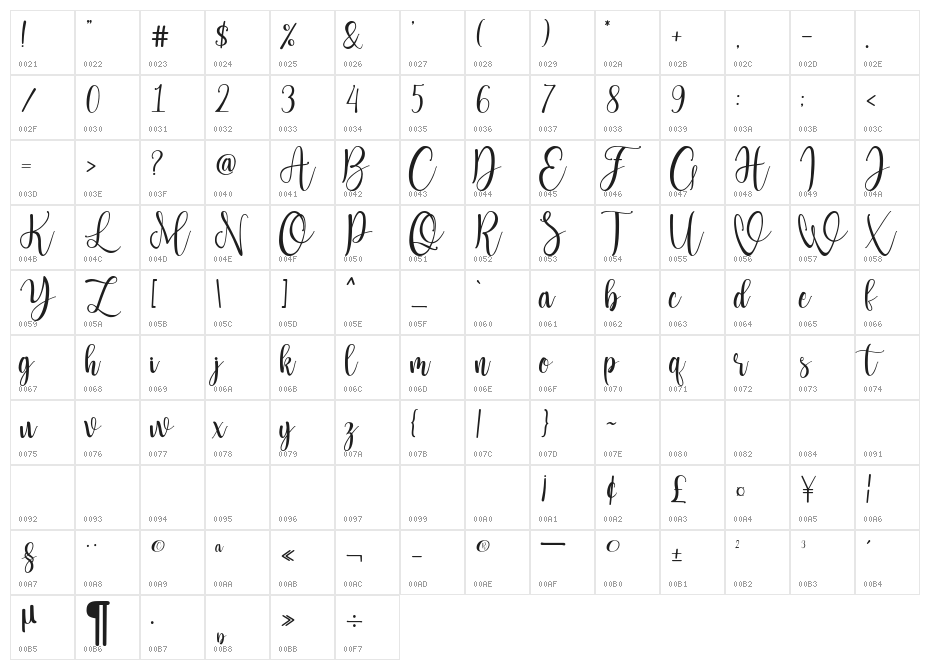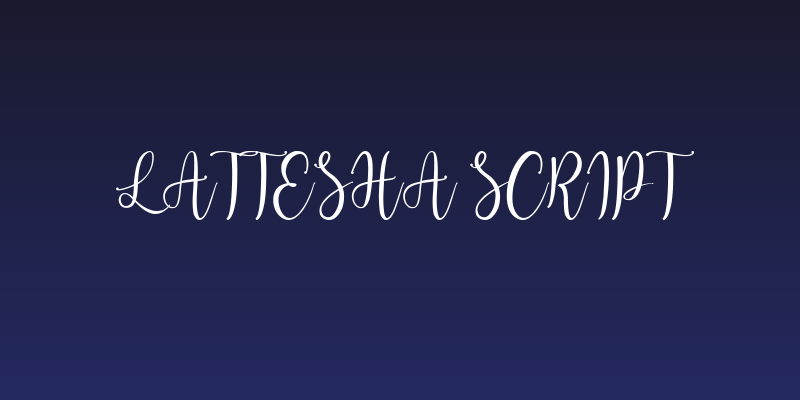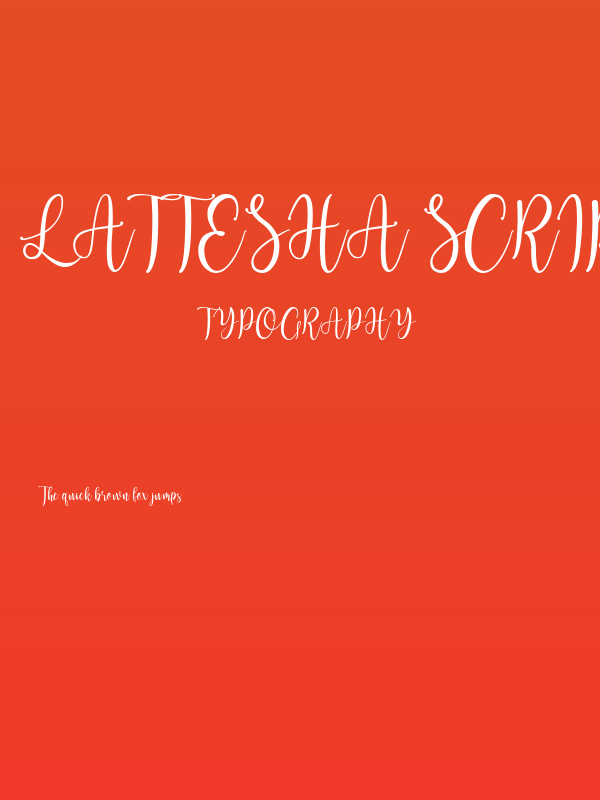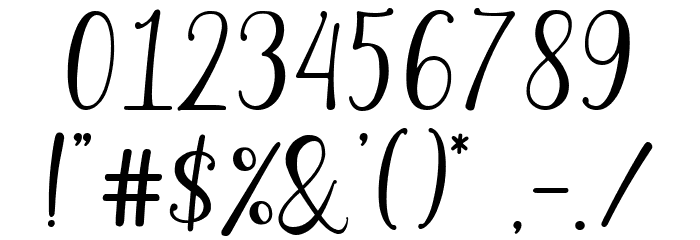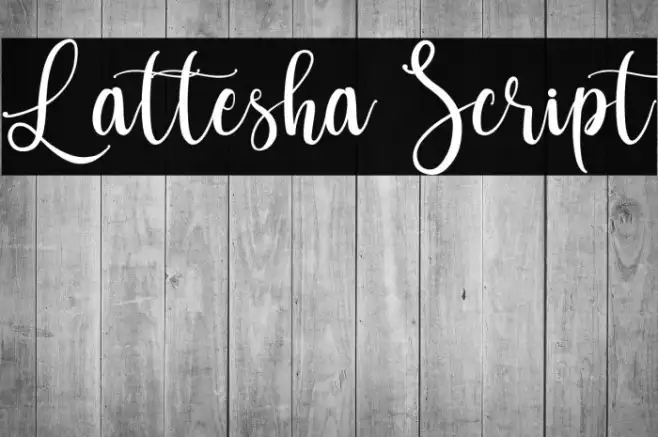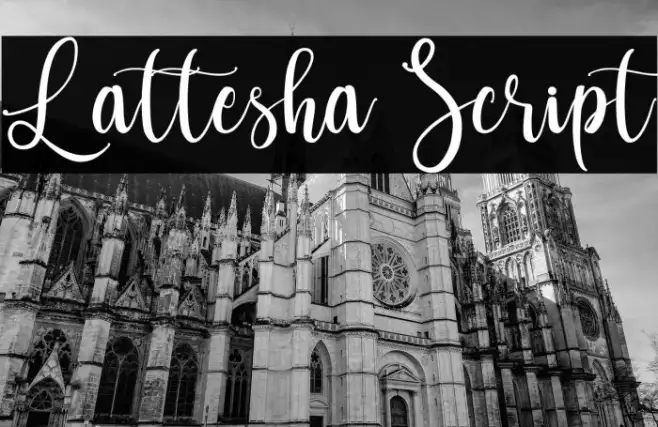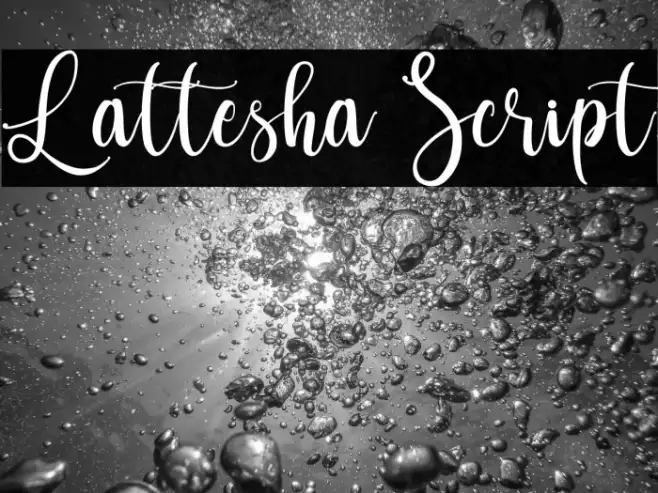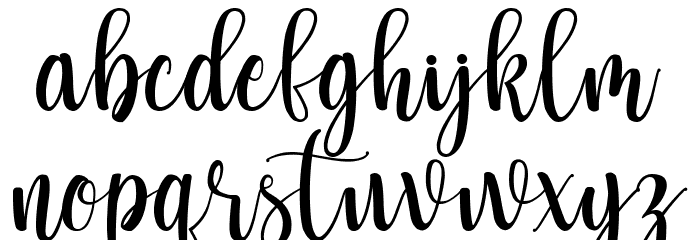
Lattesha Script Font
Lattesha Script Description
This elegant script font features a flowing, cursive style with a modern touch. The uppercase letters are characterized by their graceful loops and swirls, giving them a sophisticated and artistic appearance. The lowercase letters maintain a consistent fluidity, with smooth connections between characters, enhancing the overall readability. The numerals are stylish and complement the letterforms, while the special characters are designed with similar flair, ensuring a cohesive look across all glyphs. This font exudes a sense of elegance and creativity, making it ideal for projects that require a personal and artistic touch.